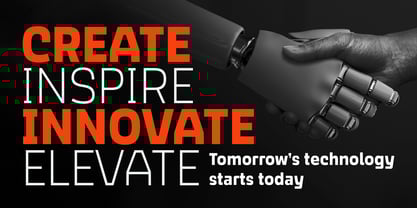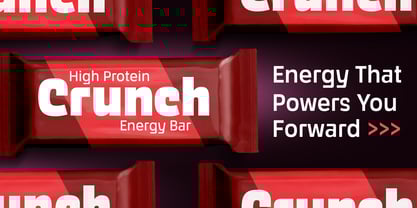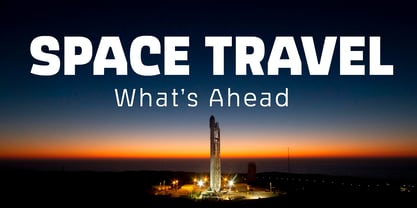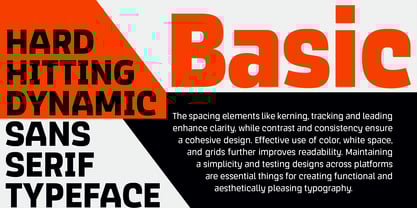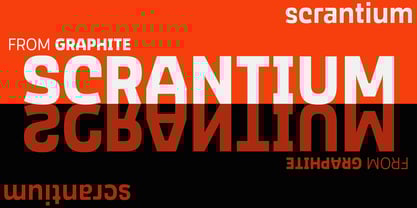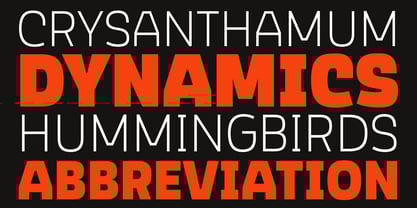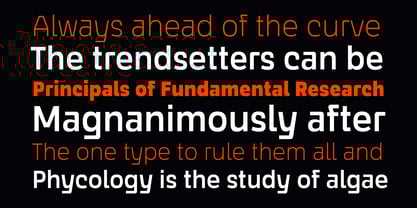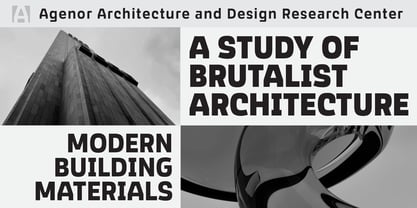
Scrantium
by Graphite
The Scrantium Font Family was designed by Deepak Dogra and published by Graphite. Scrantium contains 8 styles and family package options. More about this family
Scrantium is modern sans-serif type family with eight weights. Its subtly squared forms give it a sense of uniqueness, while striking a balance between a certain quirkiness and legibility. A generous x-height enhances clarity, making it a choice for a wide range of uses.
Whether its about making a statement with bold, attention-grabbing headlines or enhancing logo designs with style, Scrantium can do it with distinction and flair. It can bring a touch of sophistication to branding projects and ensures that even body text feels fresh and uniquely engaging.
It offers versatility and distinctness to a wide range of design projects and typographic uses.
Designers: Deepak Dogra
Foundry: Graphite